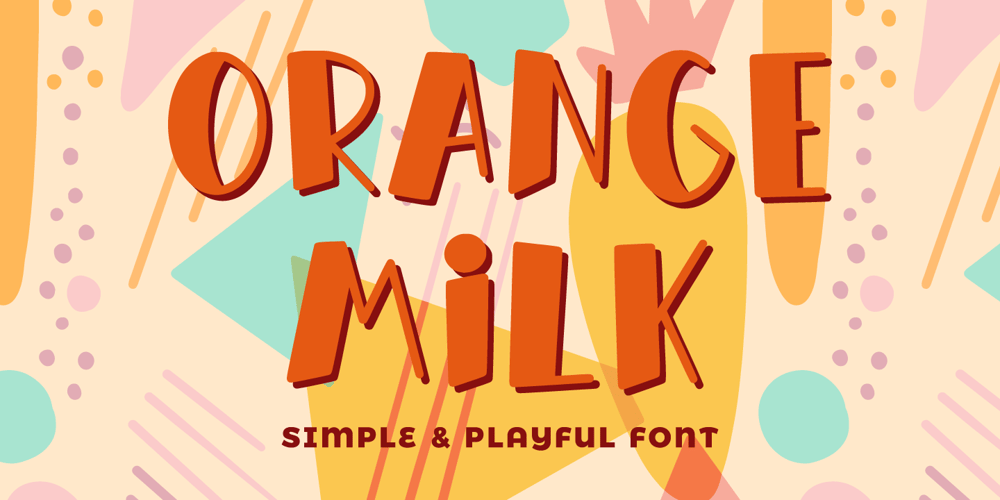
Orange Milk
Orange Milk font
Orange Milk Font Family was designed by Abdul Malik Wisnu and published by Almarkha Type. Orange Milk contains 2 styles and family package options. Orange Milk is a quirky and fun script full of charm With 2 version Regular and Line . It will take any DIY-project to the next level!Orange Milk is perfect for Craft , product packaging, product designs, label, branding projects, logo, wedding designs, social media posts, advertisements, watermark, invitation, stationery and any projectsSimple installationsAccessible in the Adobe Illustrator, Adobe Photoshop, Adobe InDesign, even work on Microsoft Word. PUA Encoded Characters – Fully accessible without additional design software. Fonts include multilingual supportImage used : All photographs/pictures/vector used in the preview are not included, they are intended for illustration purpose only.Thank You